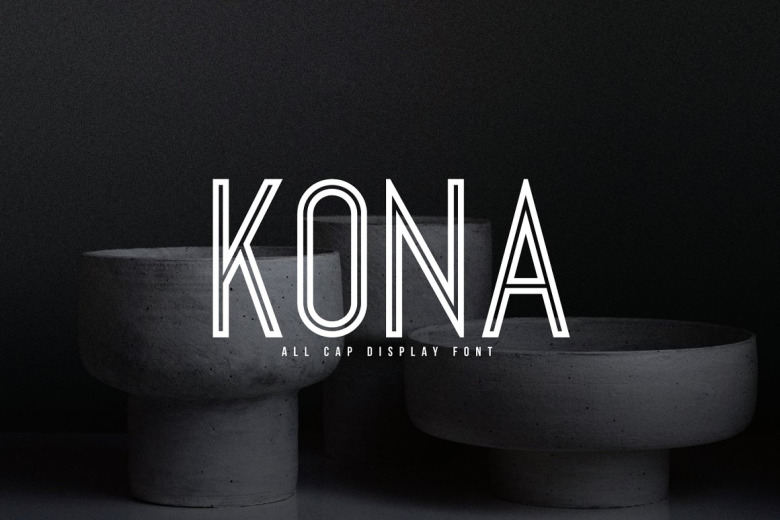
Kona Font
Kona is futuristic ( Linecreative – simple display font ) Lyric with sandwiched punch line and multilingual support. This is a supremely flexible typeface that will perform at virtually any size.
Kona, created by Amy Dietz is ideal for fashion branding, homeware design, product packaging, magazine headers — or simply as a text overlay to any background.
Kona Display Font